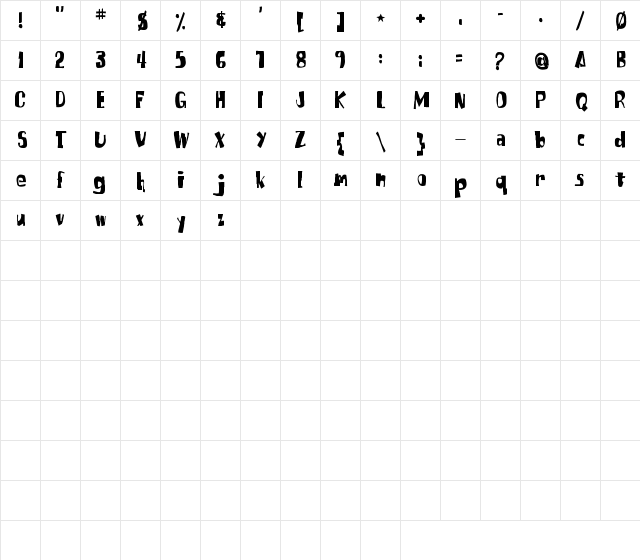
SpongeFont SquareType Regular
Design Context for SpongeFont SquareType
SpongeFont SquareType is a composed and adaptable typeface that performs quietly and consistently across a wide range of design contexts.
Pro Tip: Use SpongeFont SquareType in both headline and body roles to test its range before committing to a single application.